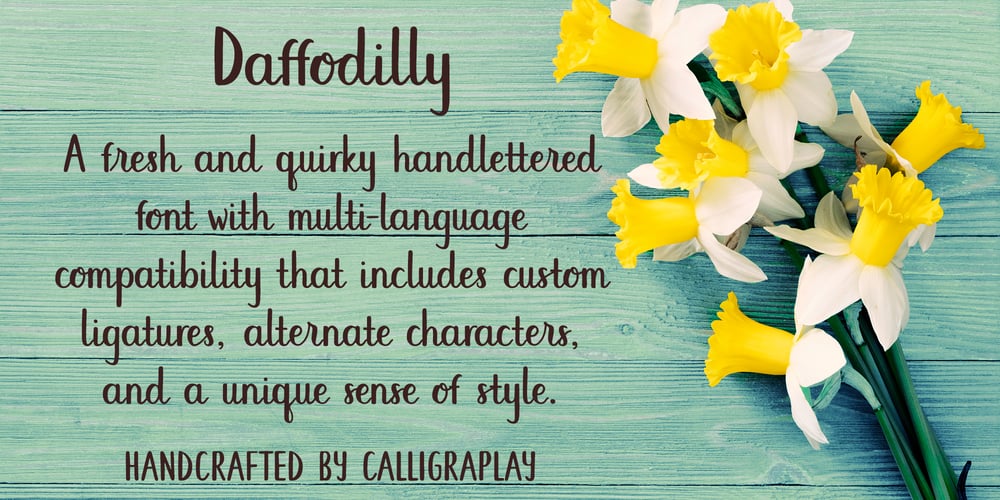
Daffodilly Font Family was designed by Sarah-Jane Loveday and published by Calligraplay. Daffodilly contains 1 styles and family package options. Daffodilly is a fresh and quirky handlettered font with multi-language compatibility that includes custom ligatures, alternate characters, and a unique sense of style.Designed as a calligraphic display font, use it for posters, signage, branding, invitations, menus, and any artwork that needs unconventional handwritten lettering.Multi-lingual, connected, and with a range of symbols, the font includes 362 glyphs.